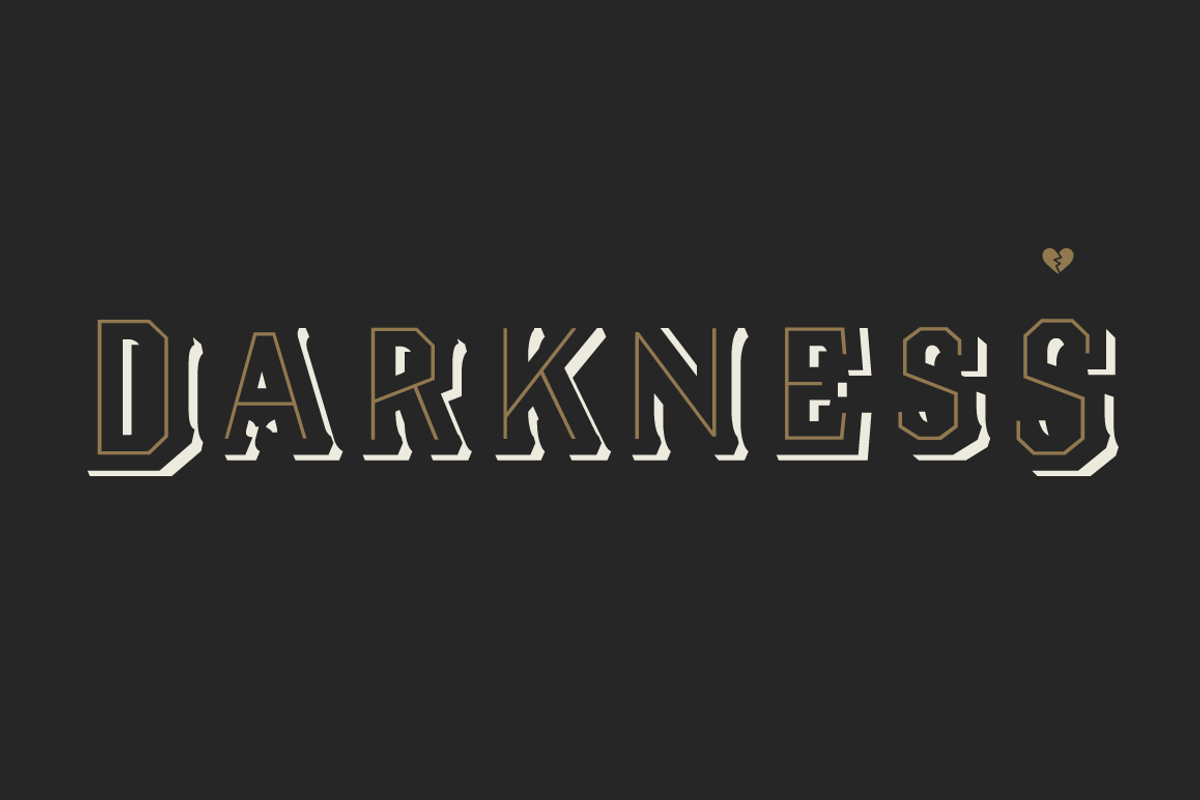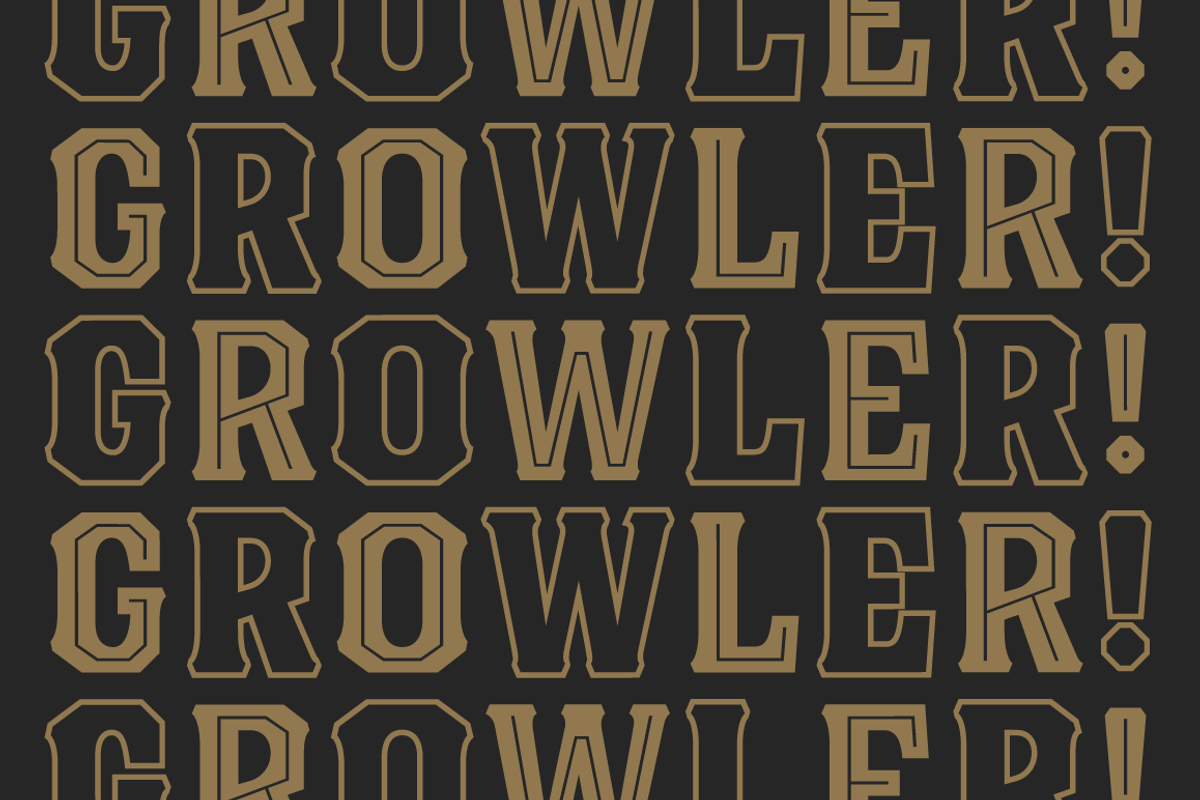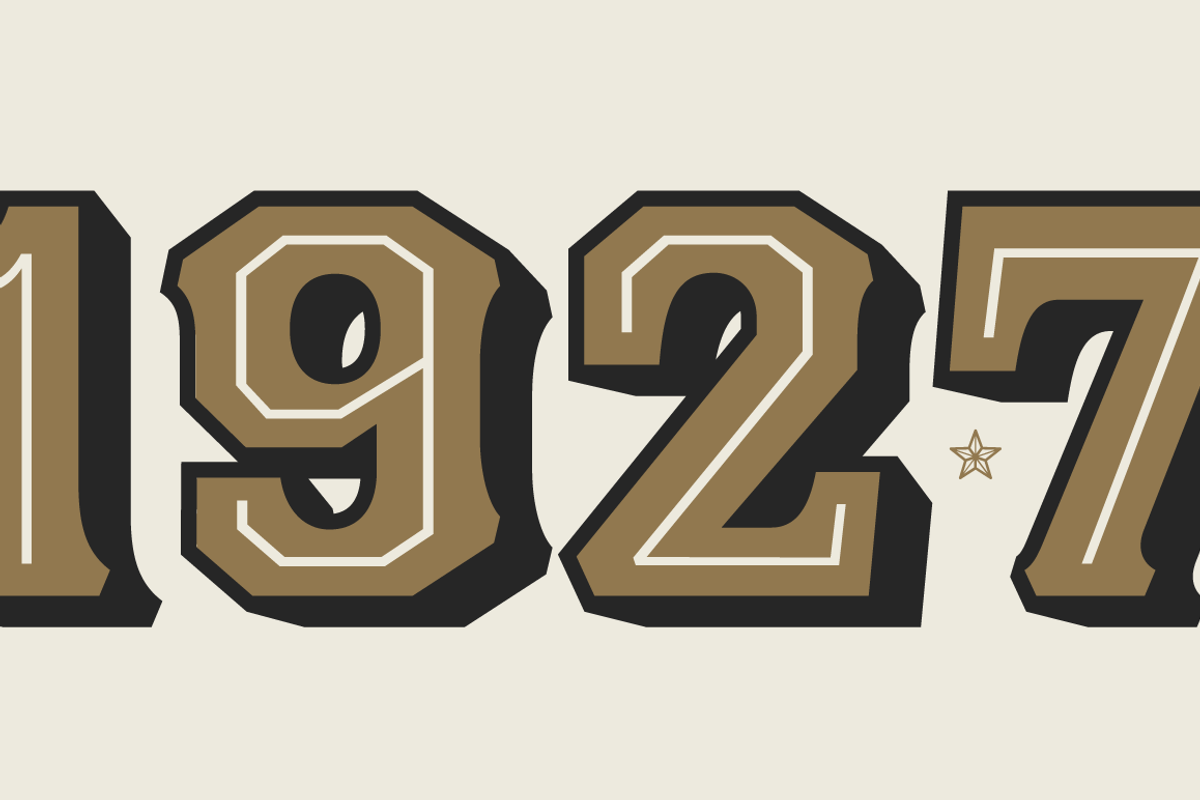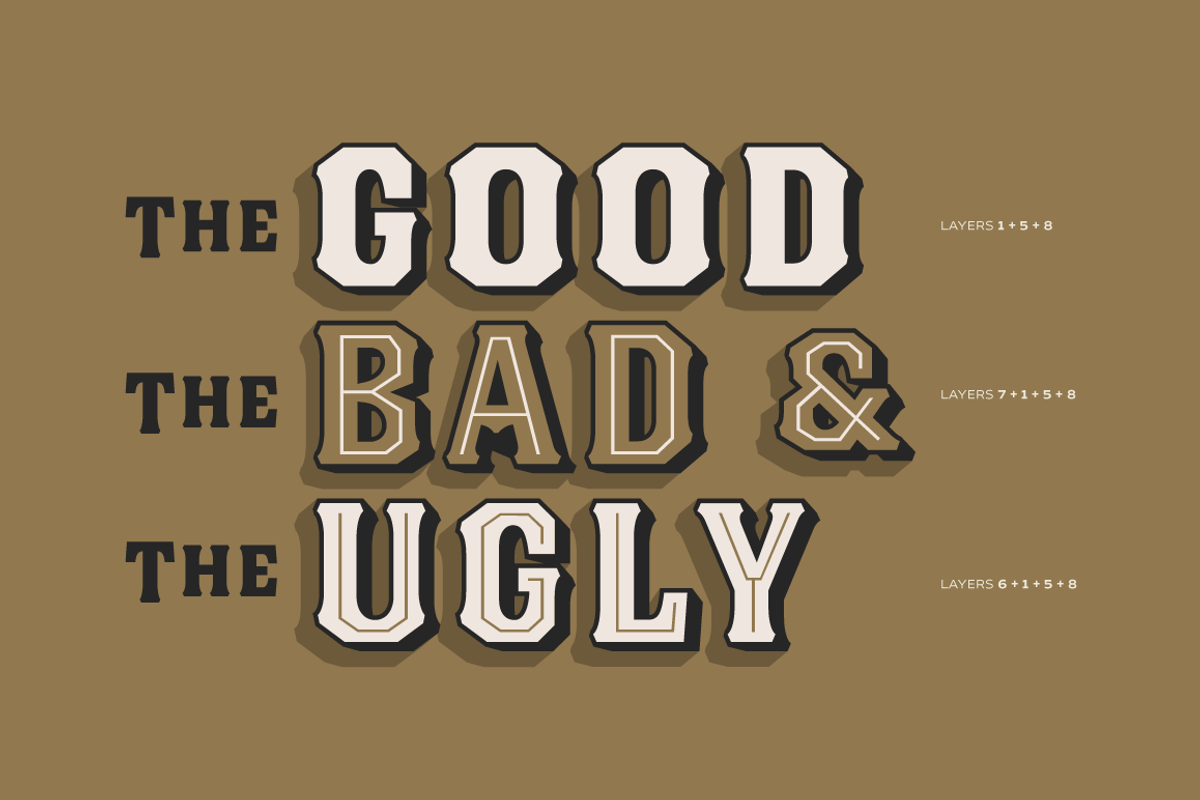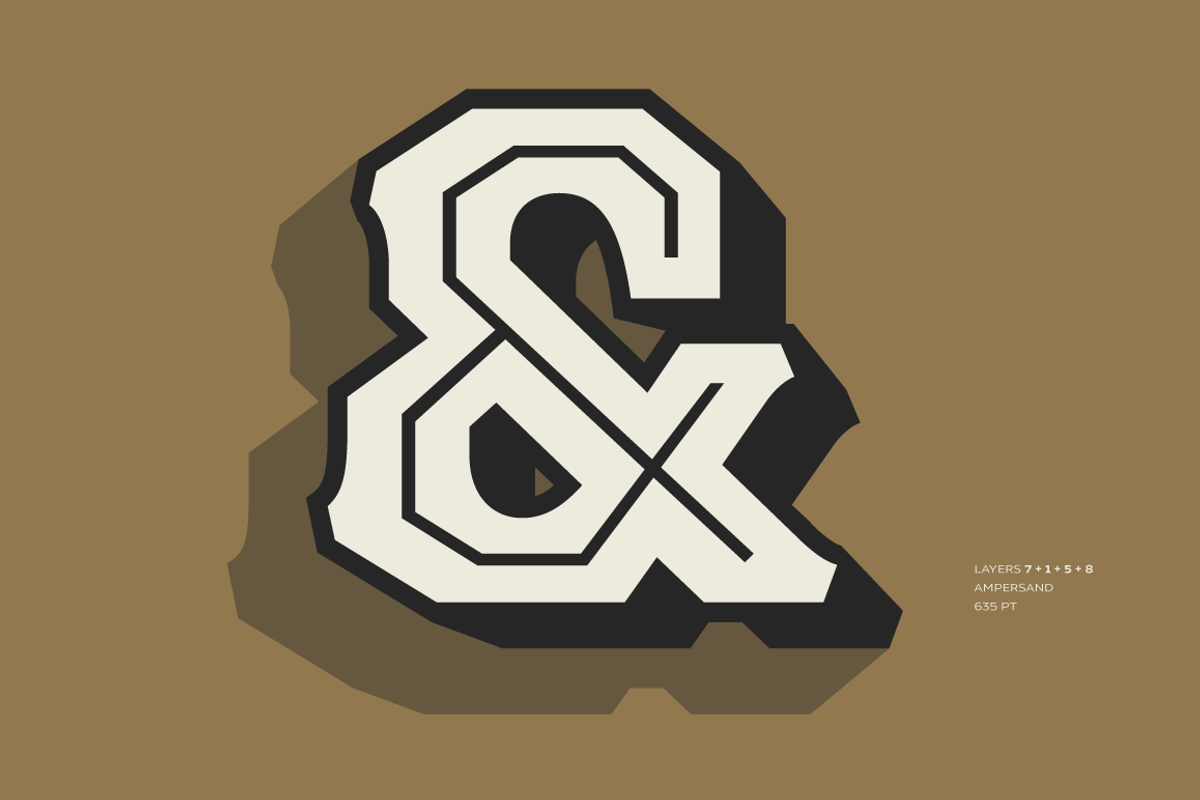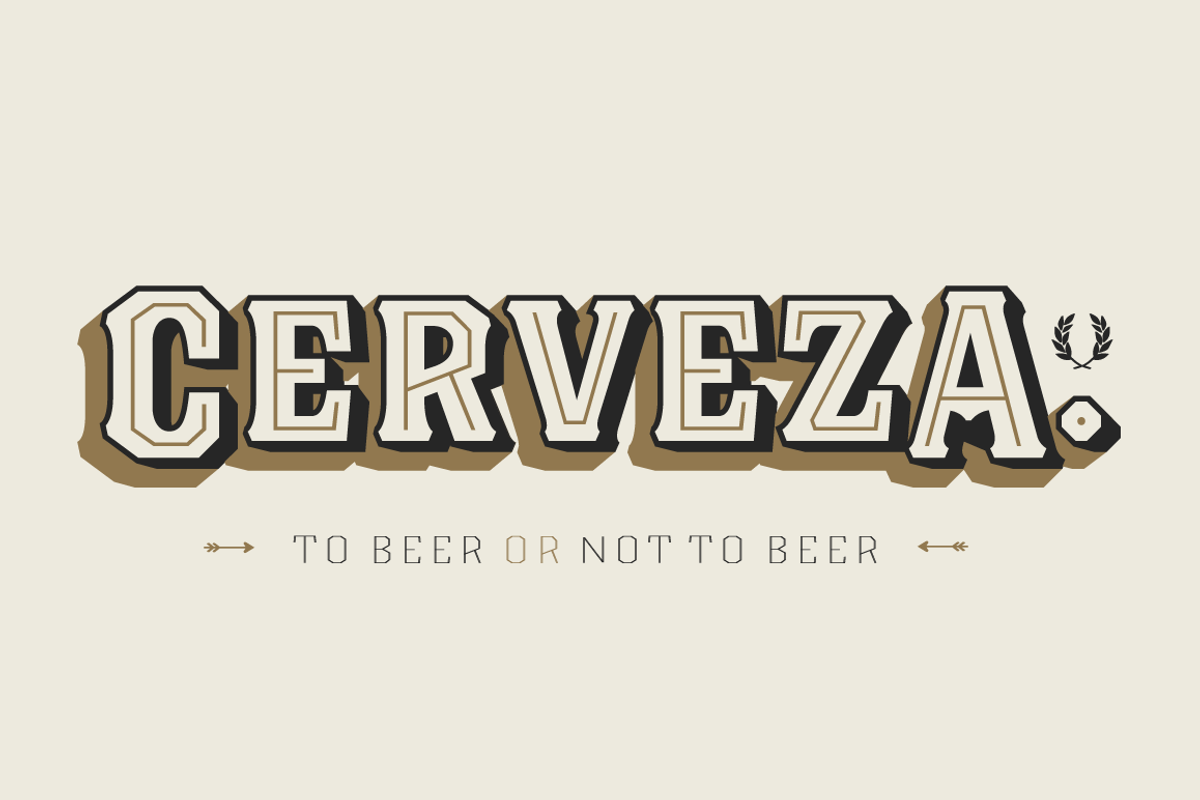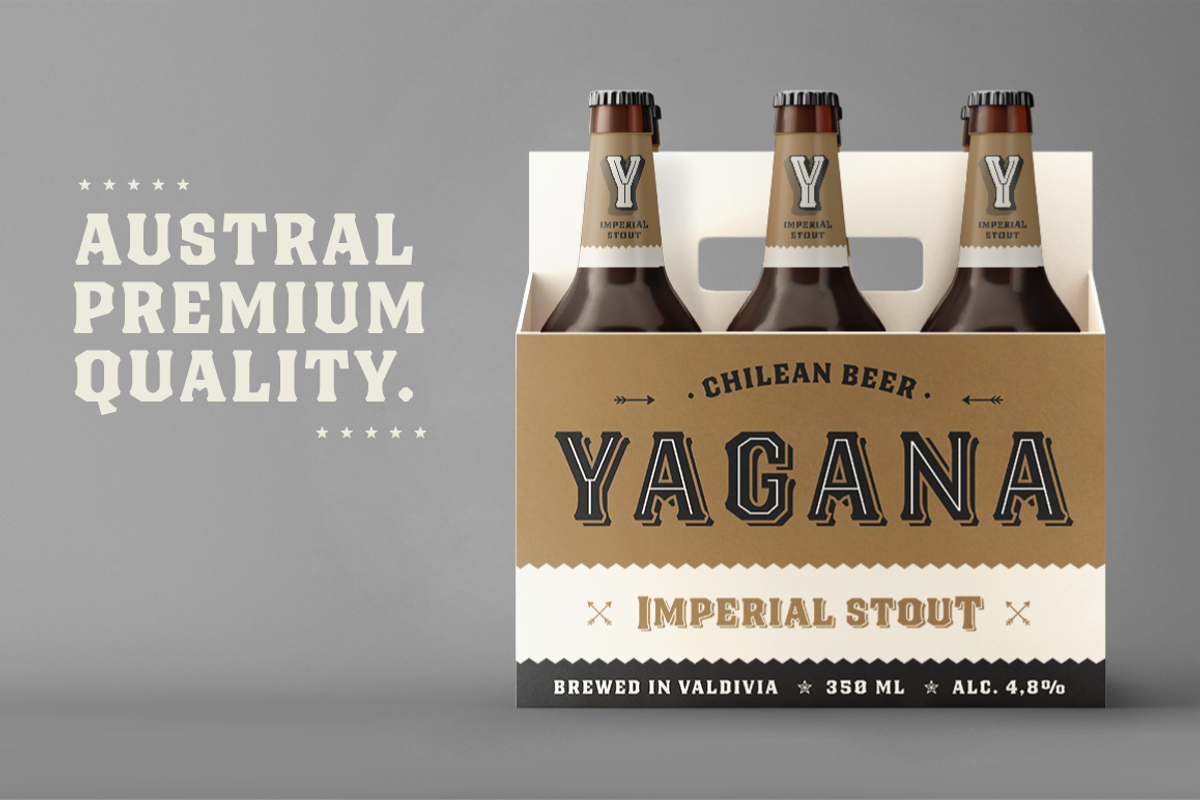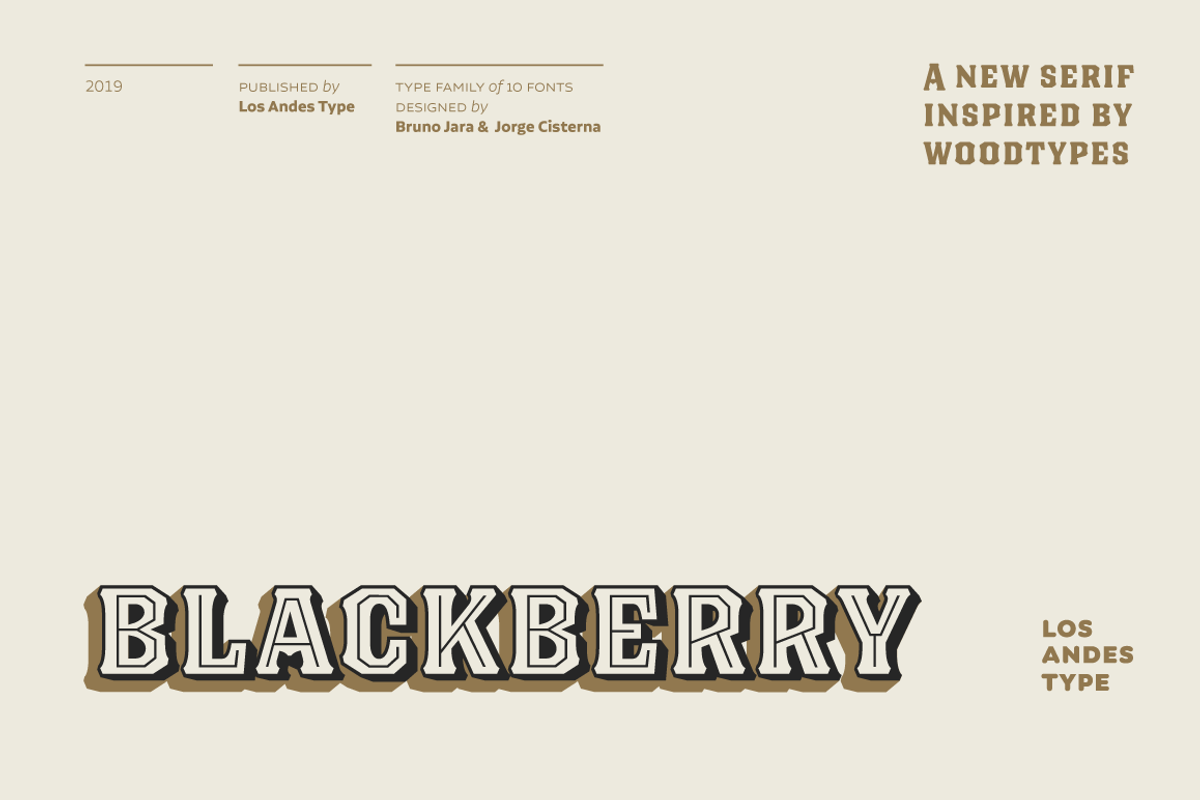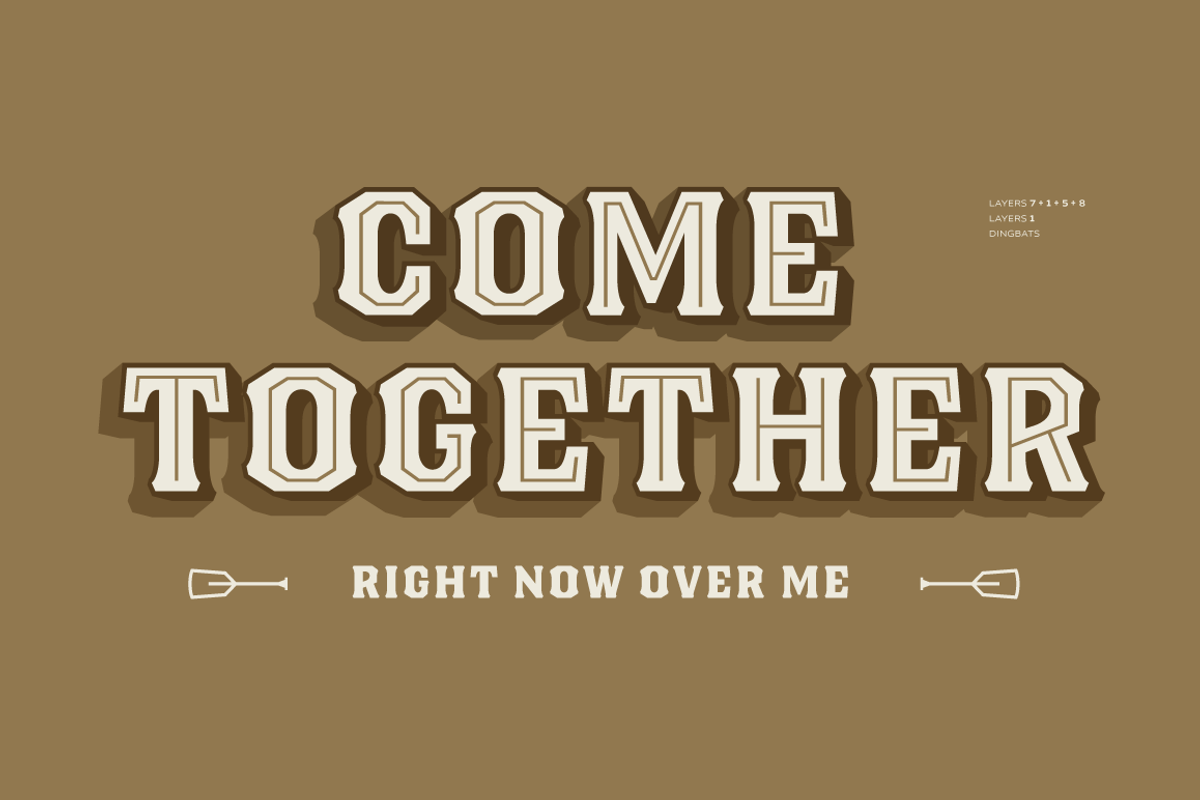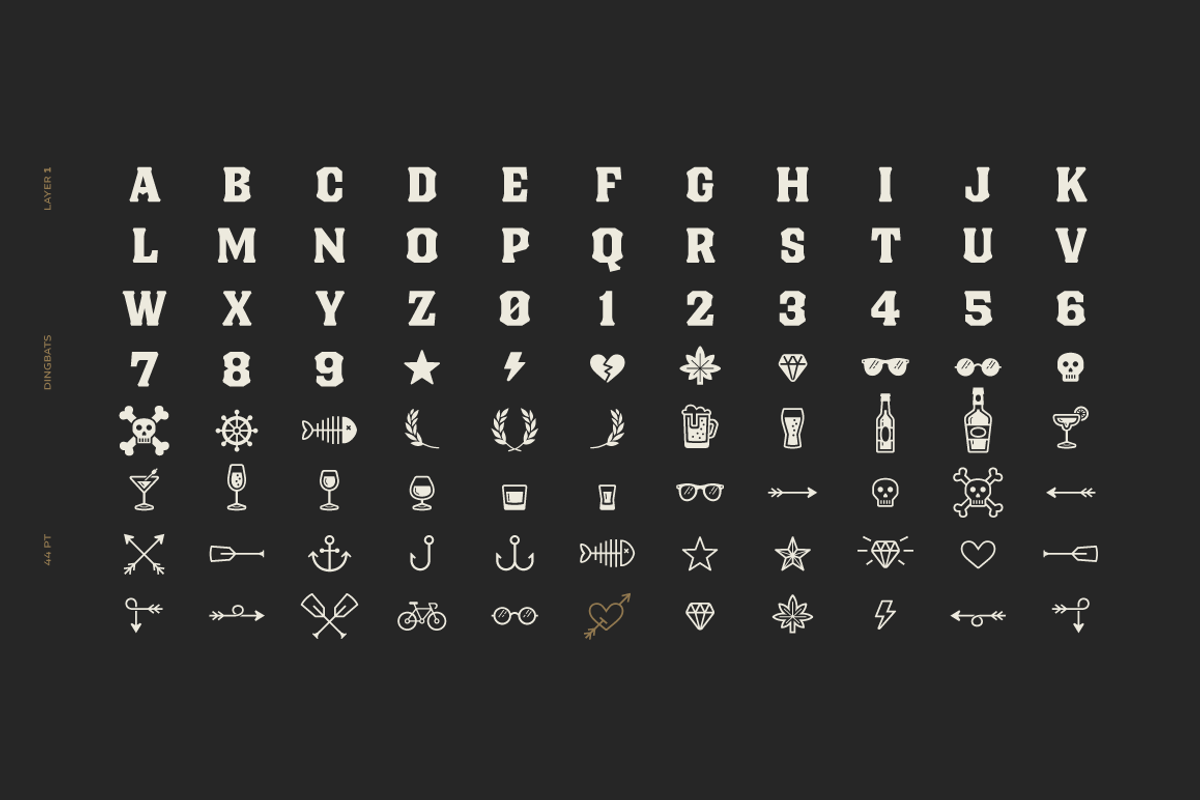
Blackberry is a display family inspired by vintage packaging design, old-fashioned ads and show business marketing campaigns. The font shares common characteristics with Wood Type typefaces such as angular serifs, slightly curved strokes and sharp edges which bring it in tune with contemporary design.
Blackberry is a versatile layered-type font system composed of 3D extrusions, shadows, inline and outline styles as well as dingbats and flags. Its character set supports over 200 Latin-based languages. The Blackberry family offers multiple combinations and a variety of choices to provide high-impact graphics including labels, packaging, branding designs, album covers, movie posters, etc.